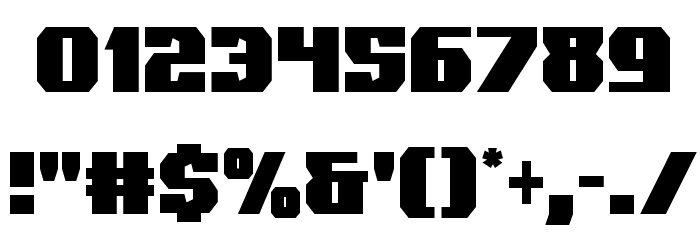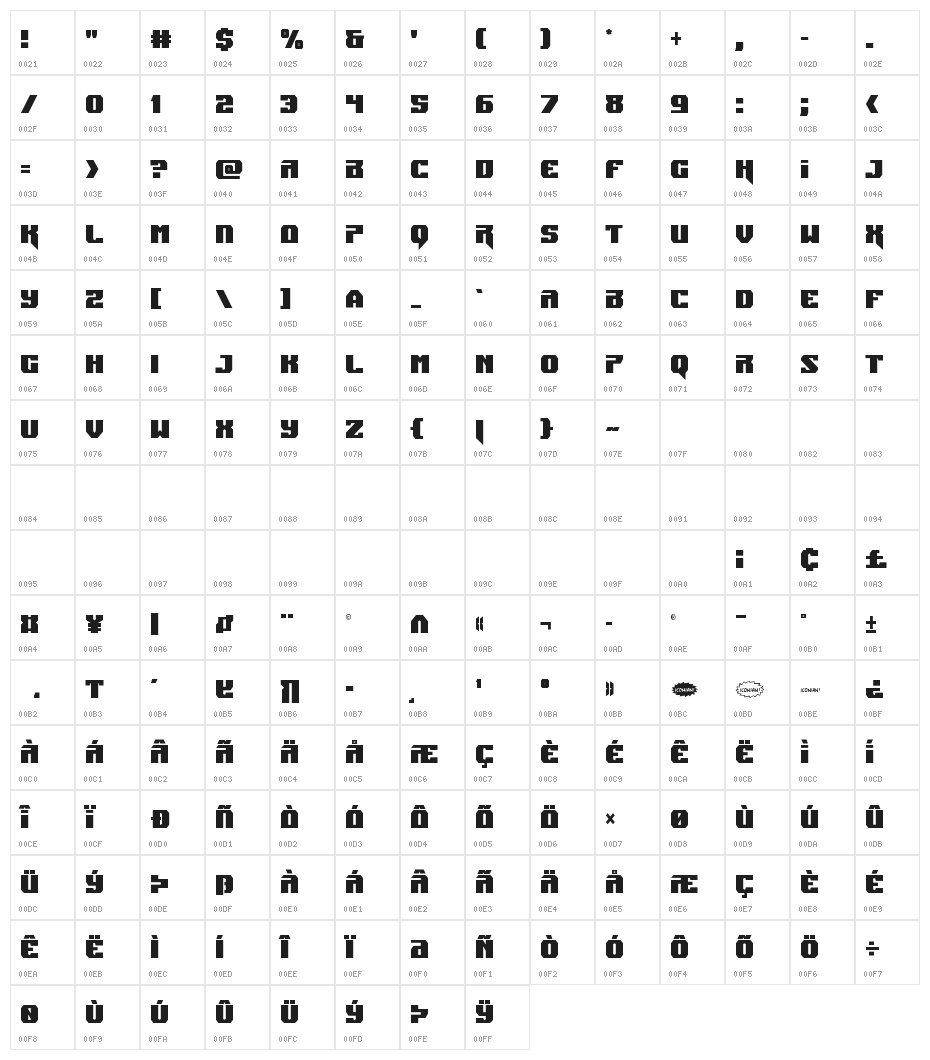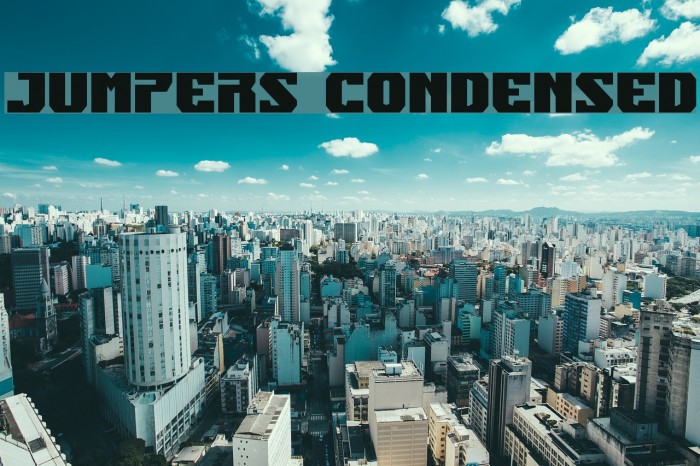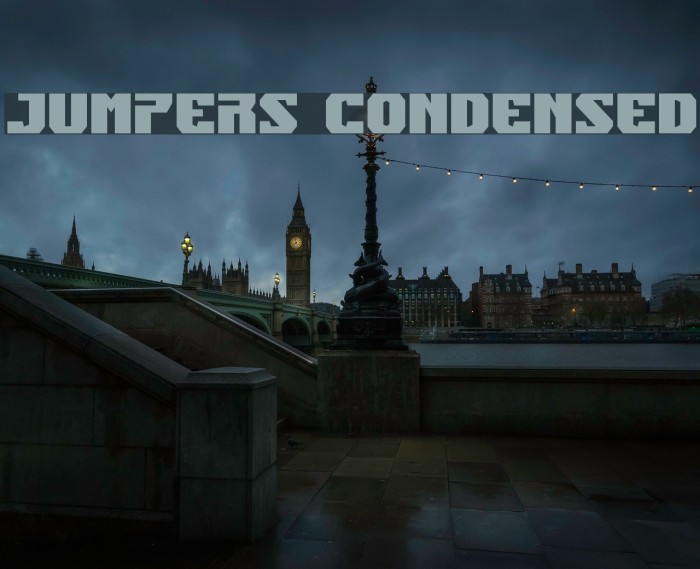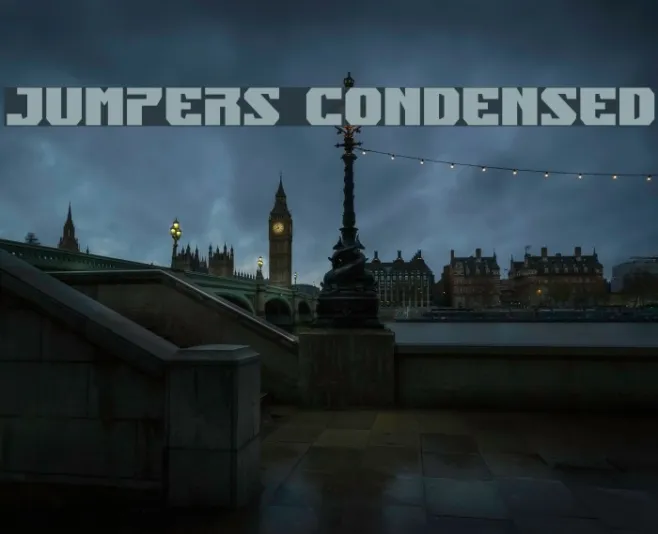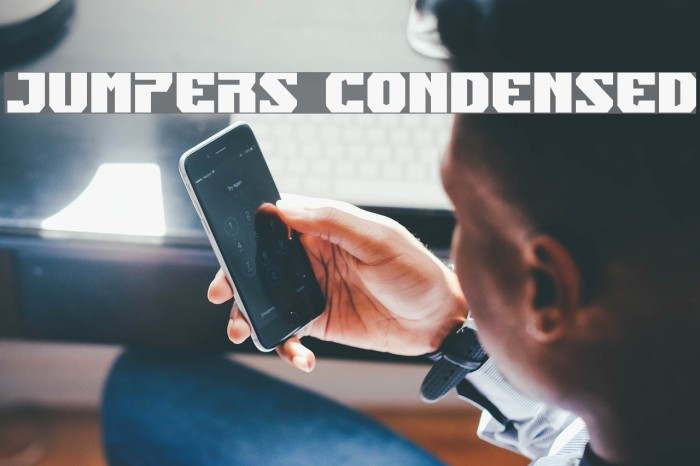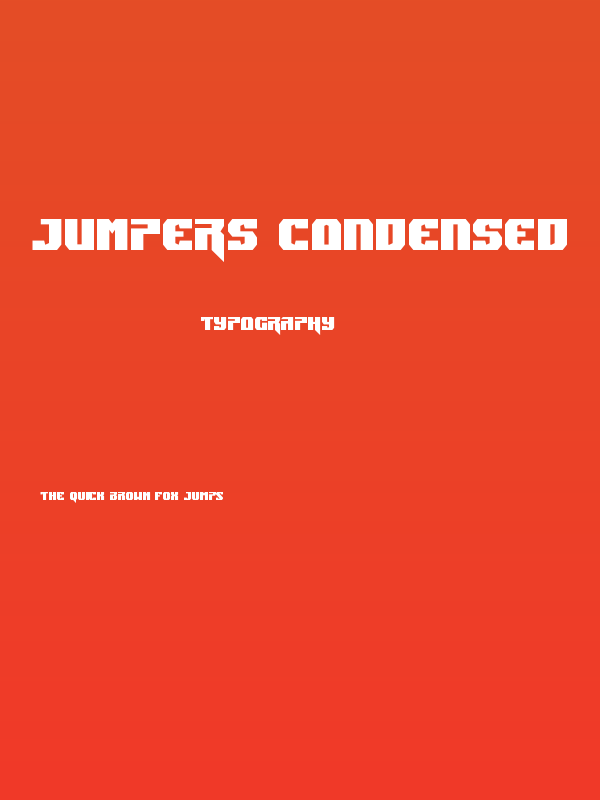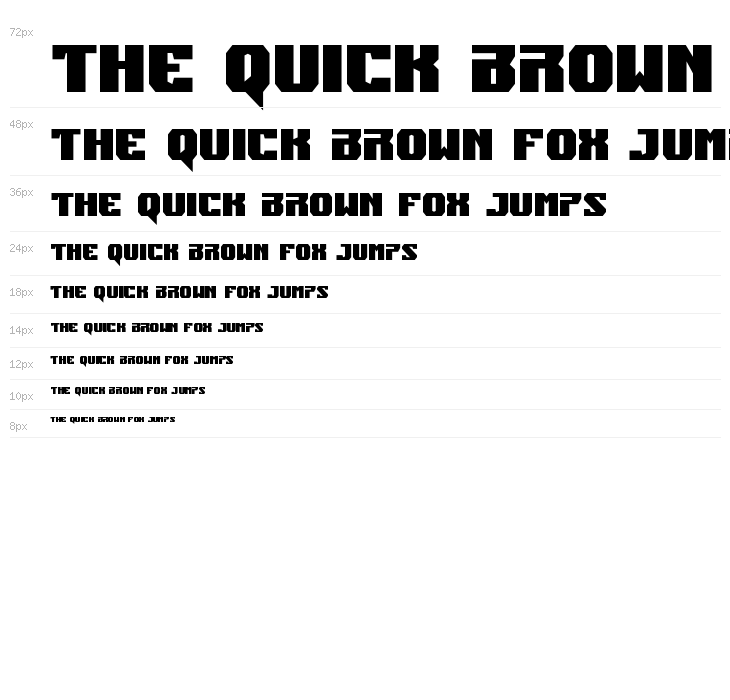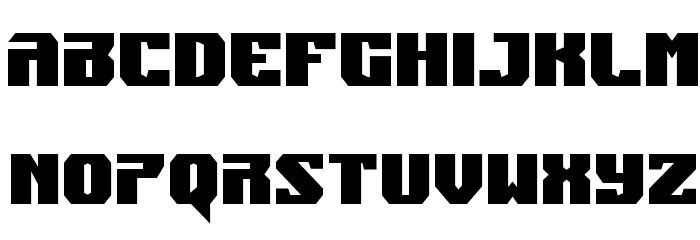
Jumpers Condensed Font
Jumpers Condensed Description
This font features a bold and striking design with sharp, angular edges and a condensed structure. The uppercase letters are uniform in height, creating a cohesive and powerful appearance. The characters are designed with a geometric style, emphasizing straight lines and sharp corners, which gives it a modern and edgy look. The numbers and special characters follow the same design principles, ensuring consistency across all elements. This font is highly legible and makes a strong visual impact, suitable for projects that require a bold statement.
| Proposed Projects | Ideal for posters, headlines, logos, and branding materials that require a strong and impactful visual presence. |